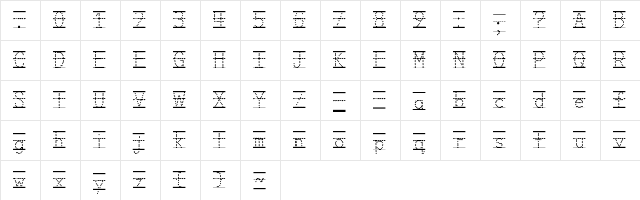
Classroom Fonts Regular
| Designer | Brenda Olsen |
Design Context for Classroom Fonts Typeface
Classroom Fonts offers clean, dependable letterforms without strong stylistic allegiance, making it a practical choice for designers who need flexibility.